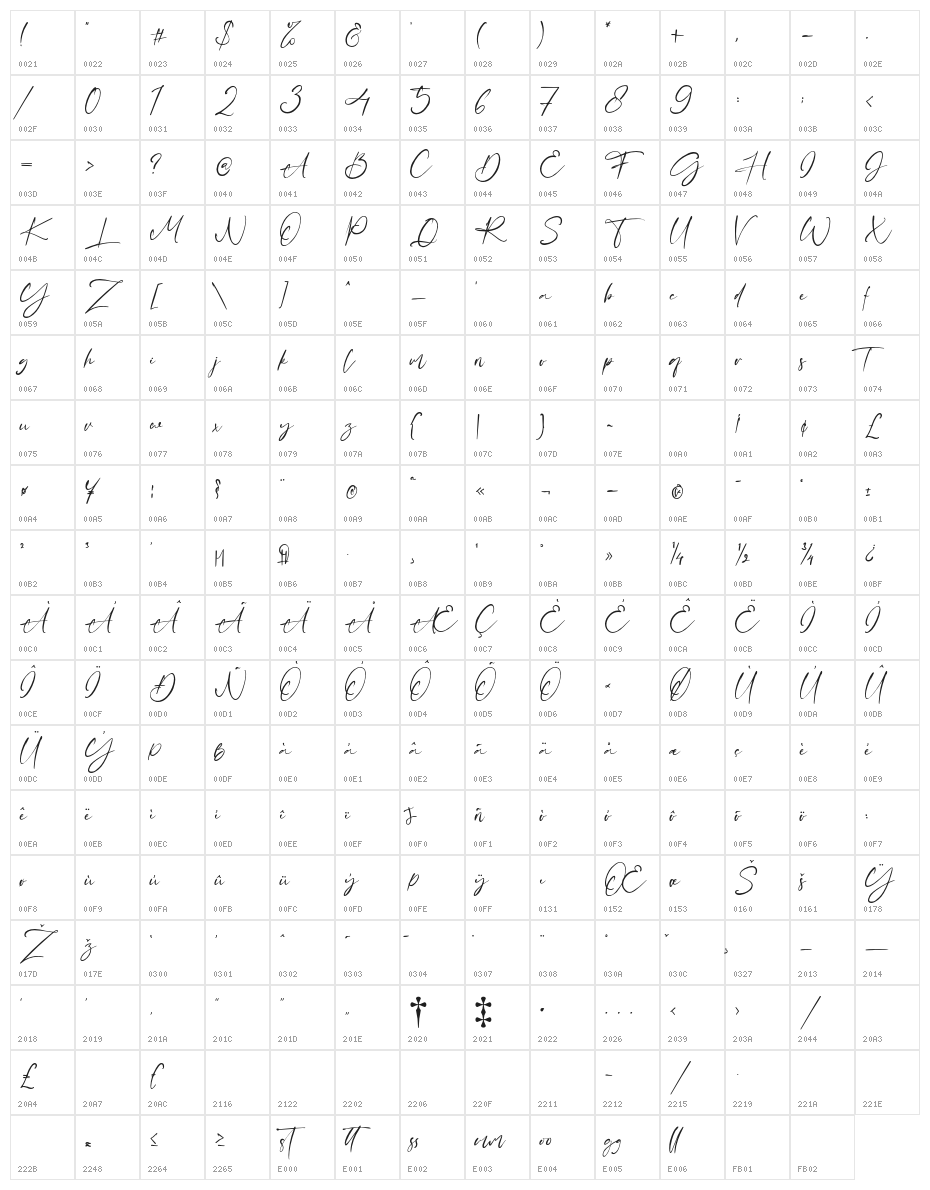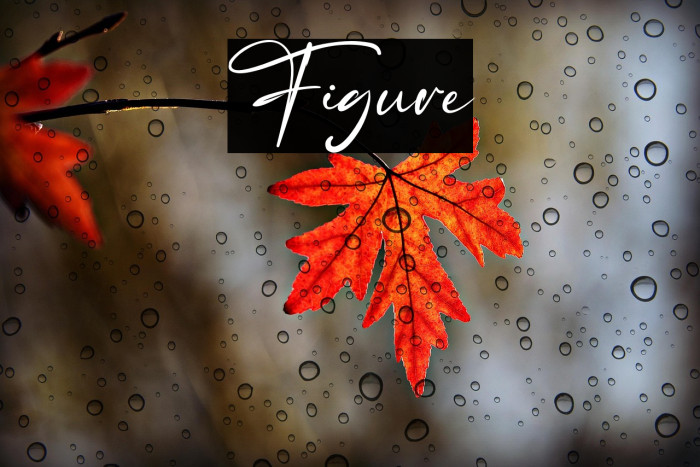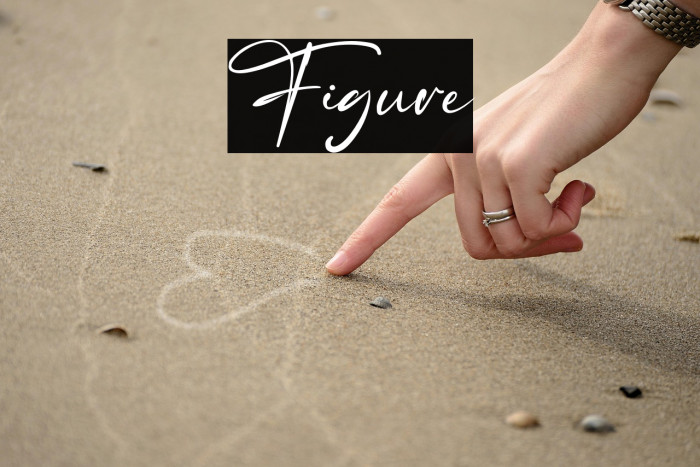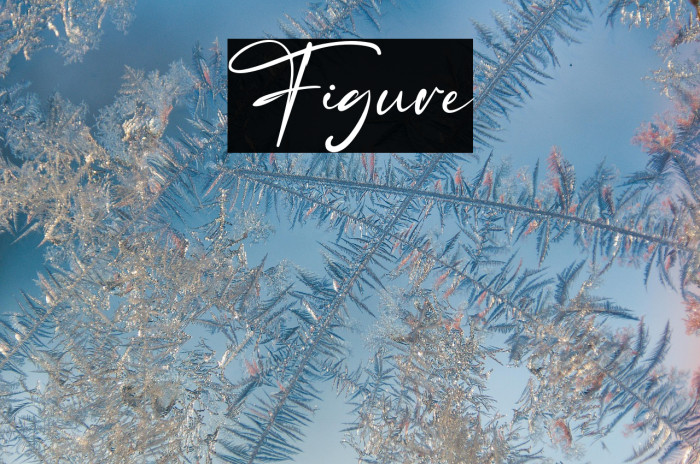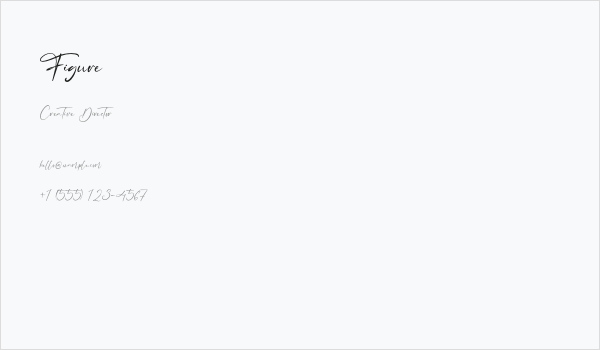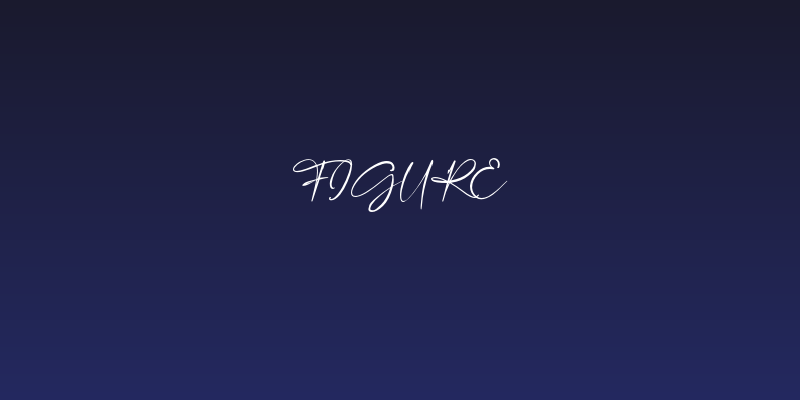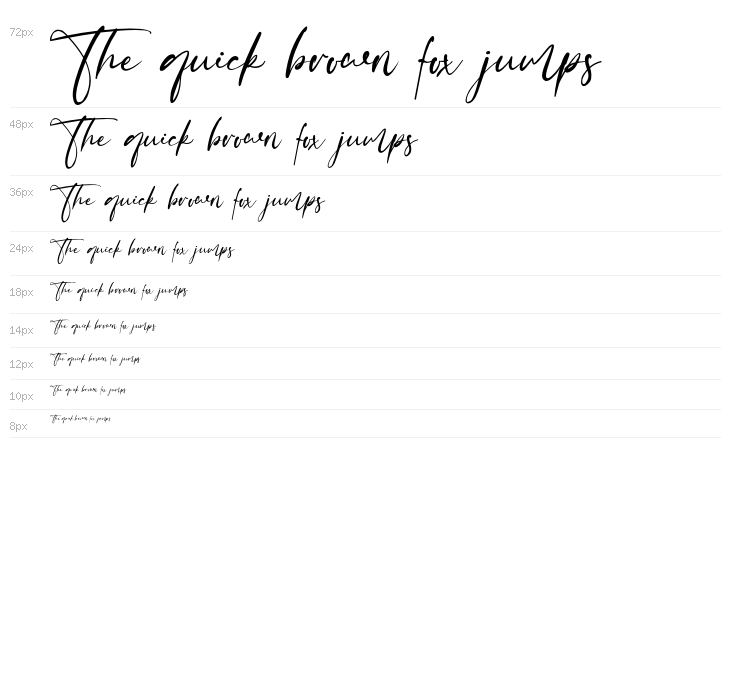
Figure Font
Figure Description
This font exudes a modern, handwritten style with a touch of elegance and fluidity. The uppercase letters are tall and slender, featuring graceful curves and loops that give a sense of movement and dynamism. The lowercase letters maintain a consistent flow, with some characters extending slightly below the baseline, adding to the casual yet sophisticated appearance. Numbers are styled to match the overall aesthetic, with a playful yet refined look. Special characters are seamlessly integrated, maintaining the font's cohesive style. The overall impression is one of effortless elegance, making it suitable for a variety of creative projects.
| Use Case | Logos, Invitations, Social Media Graphics |
| Proposed Projects | Ideal for wedding invitations, branding, social media graphics, and personal stationery. |